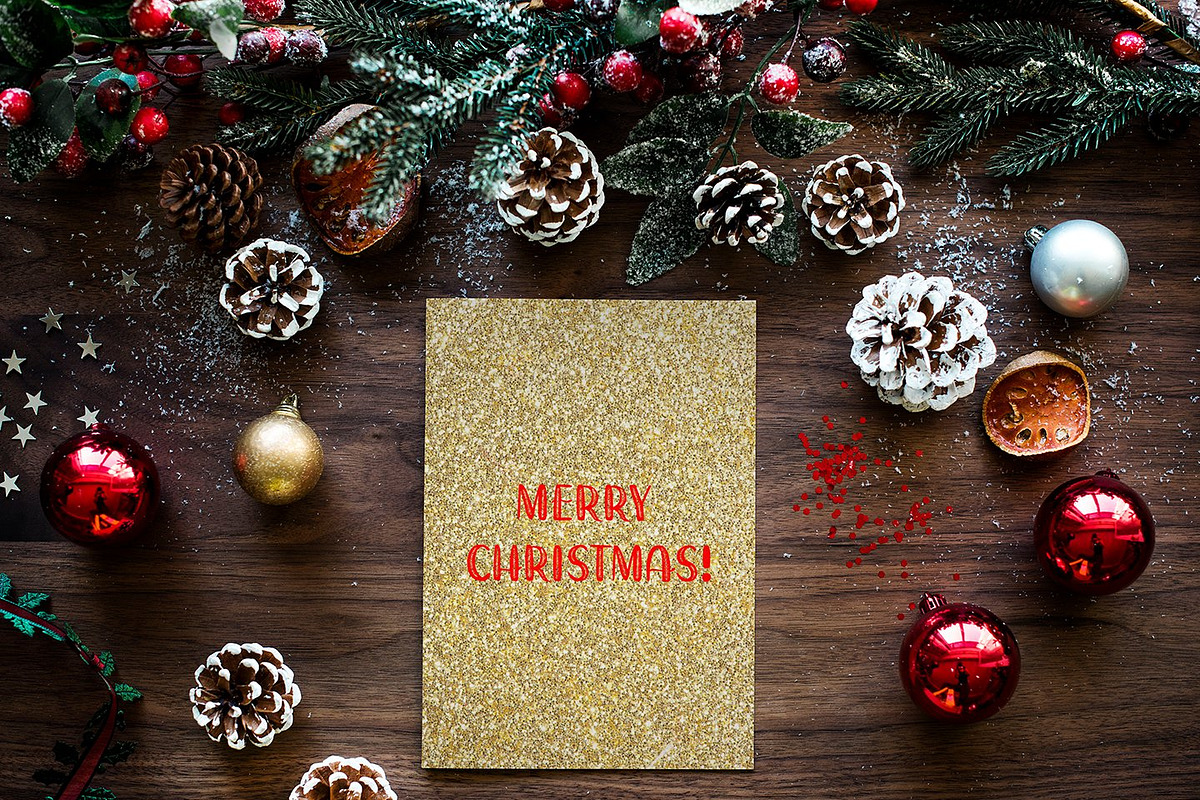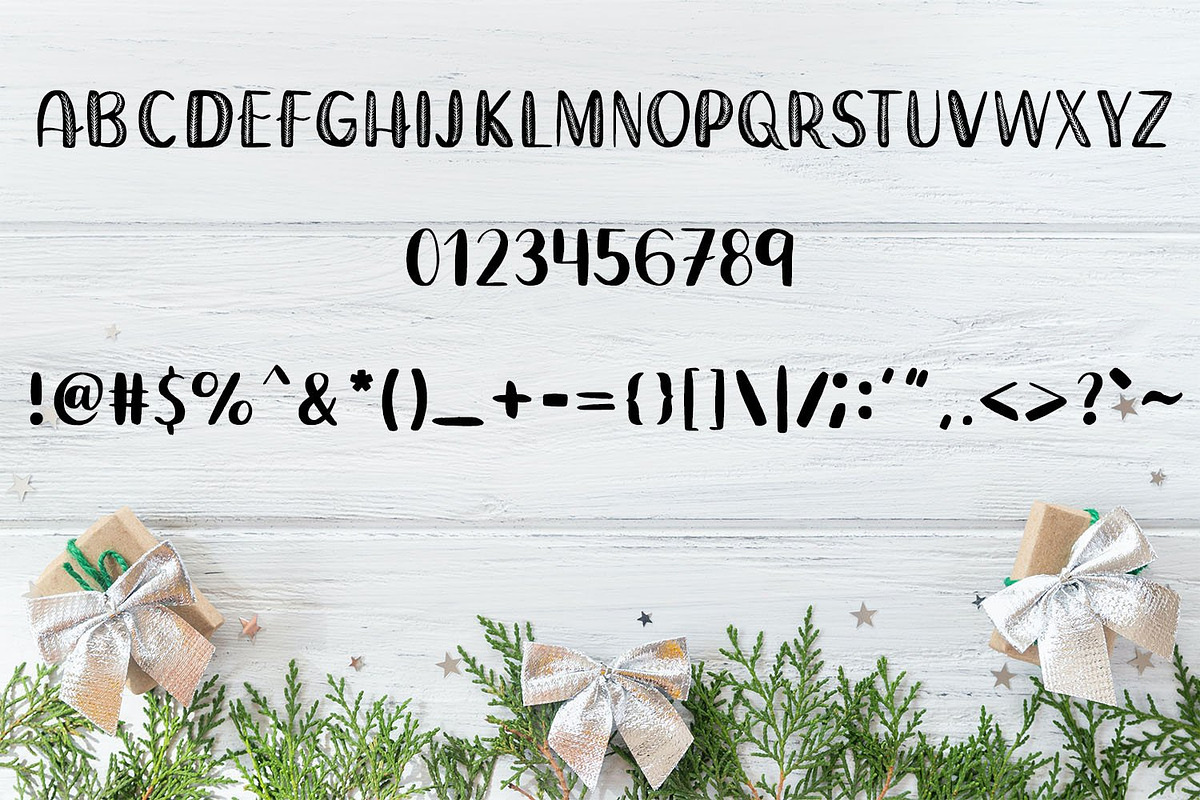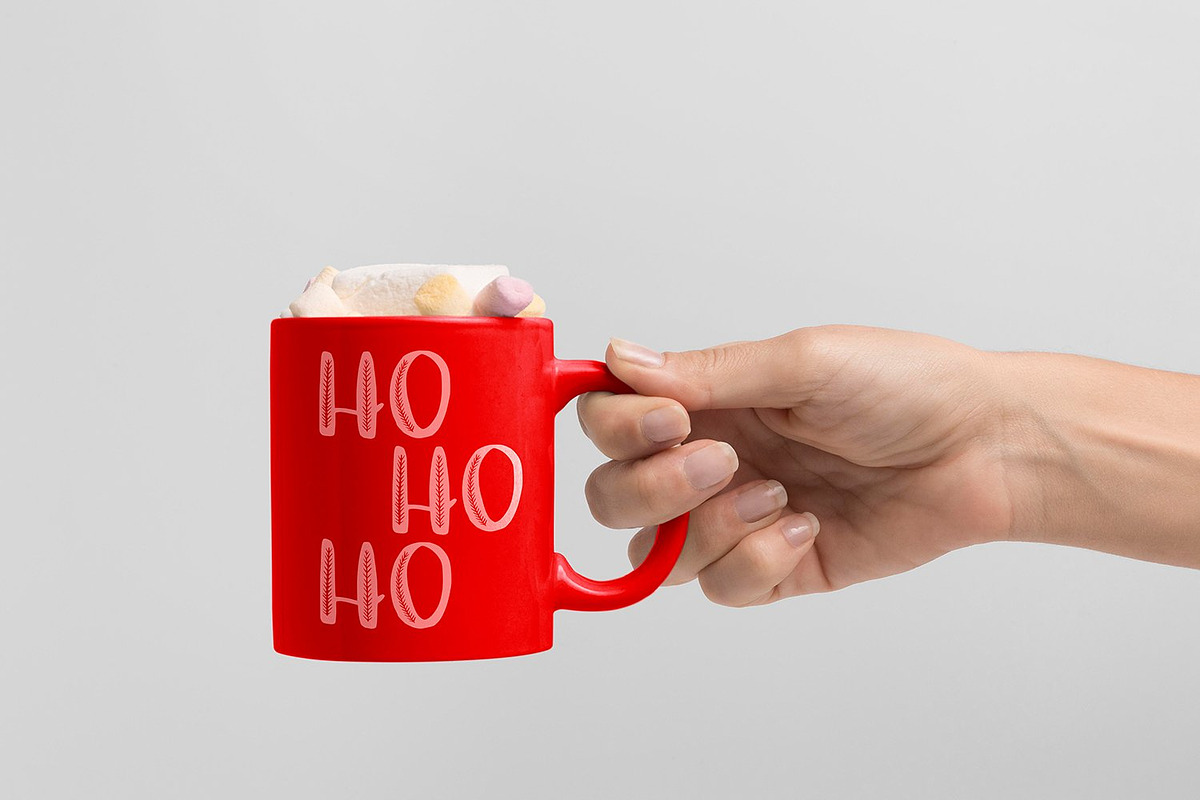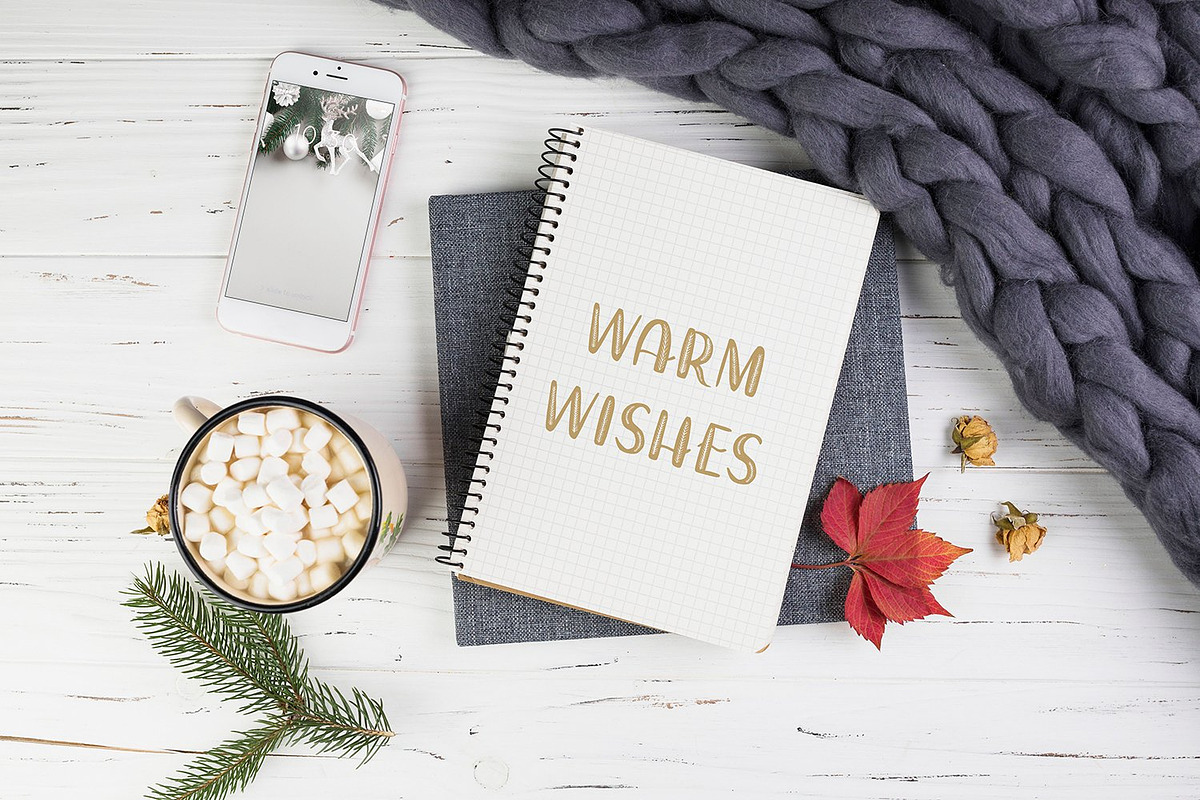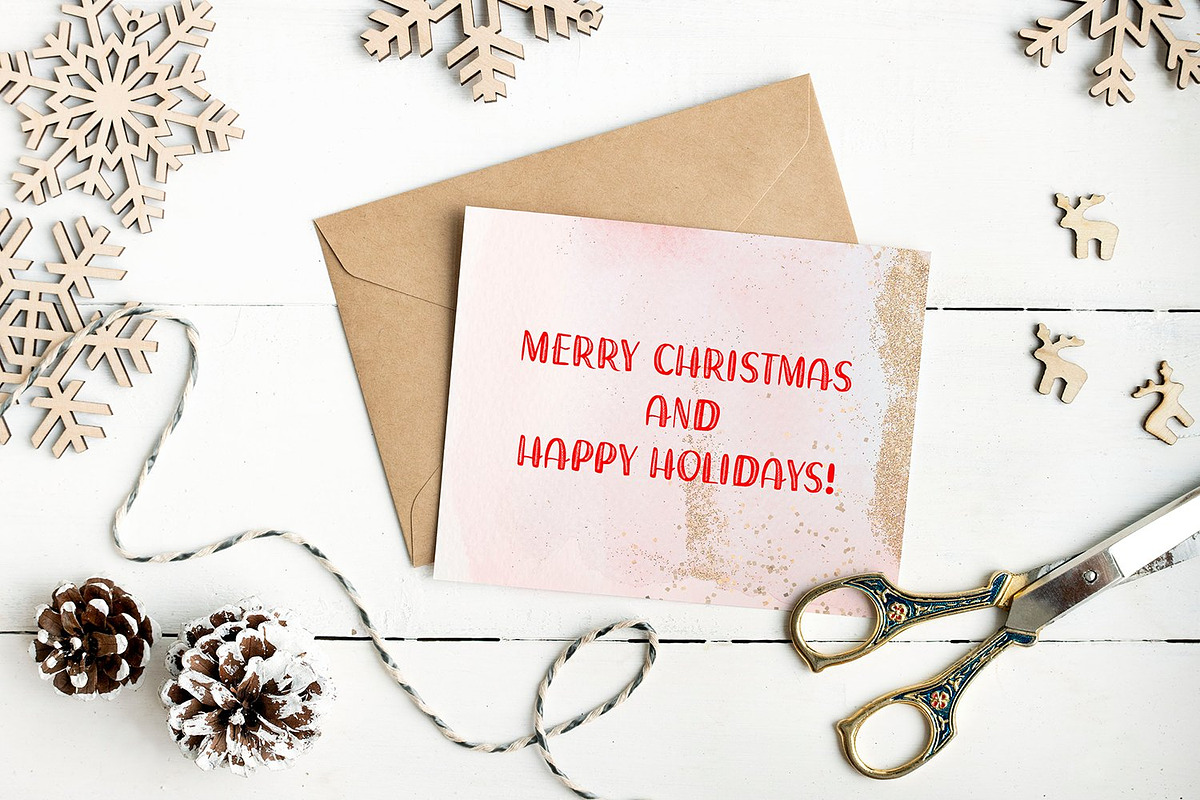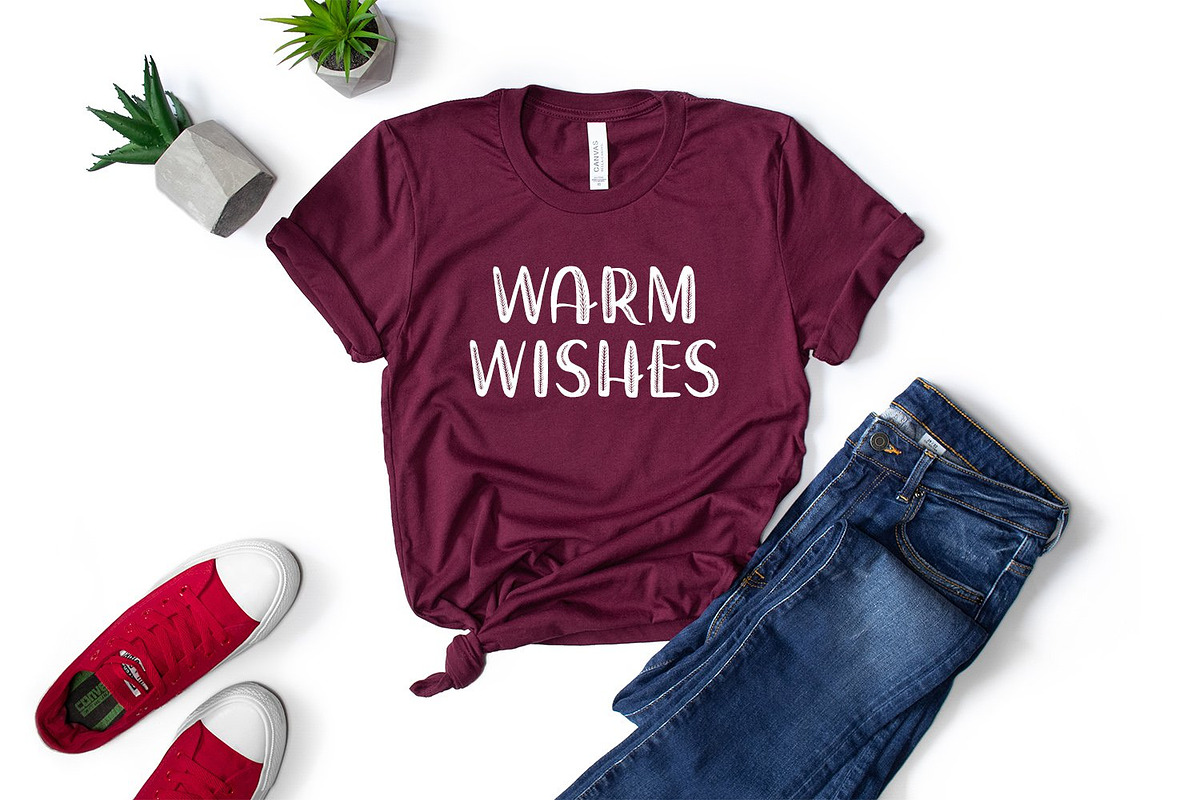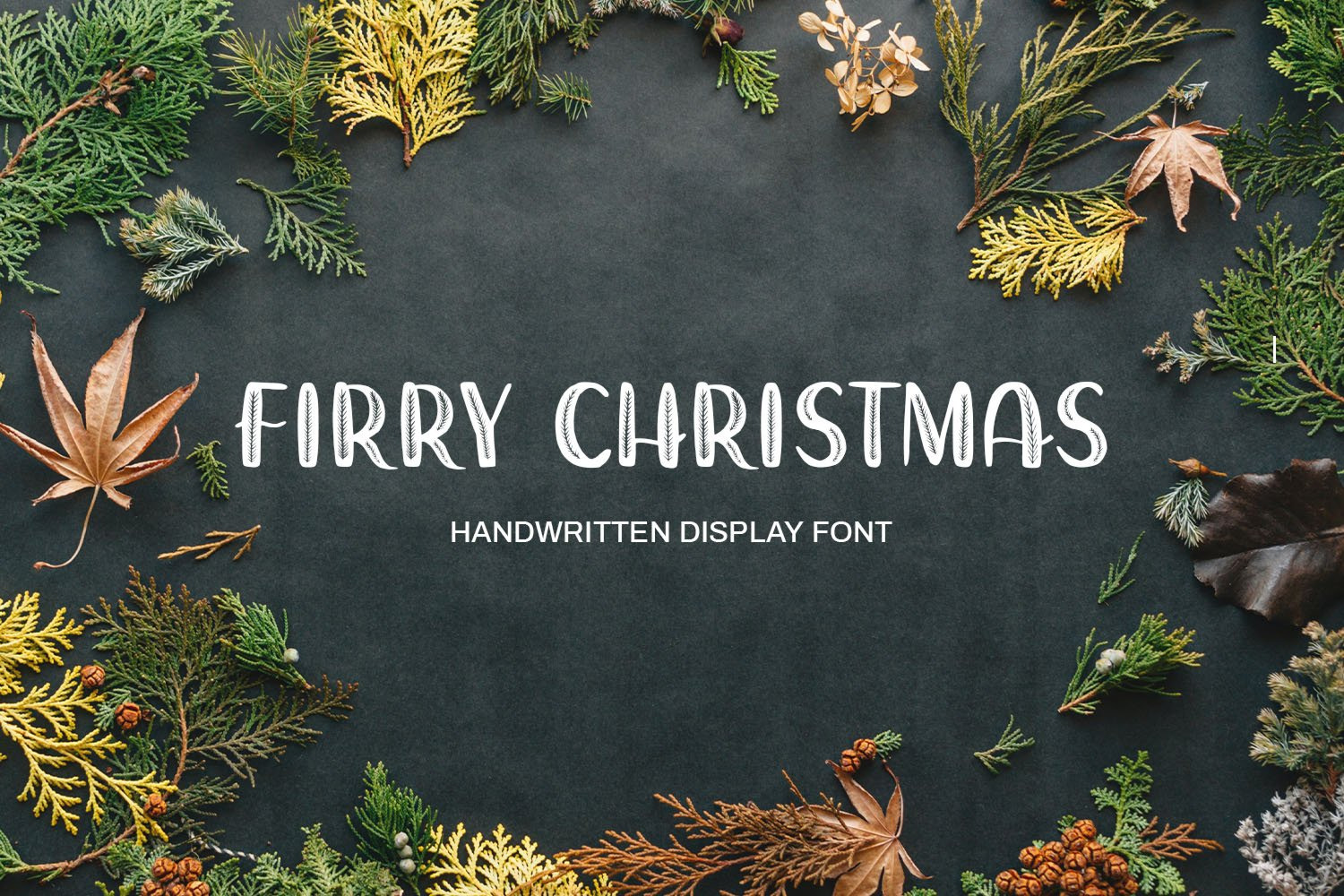
Firry Christmas Display Font
Firry Christmas Handwritten Display Font
Firry Christmas font is great for Christmas projects such as cards, decor, sublimation, and crafts. This font consists of English letters (Uppercase), numbers, and basic punctuation.